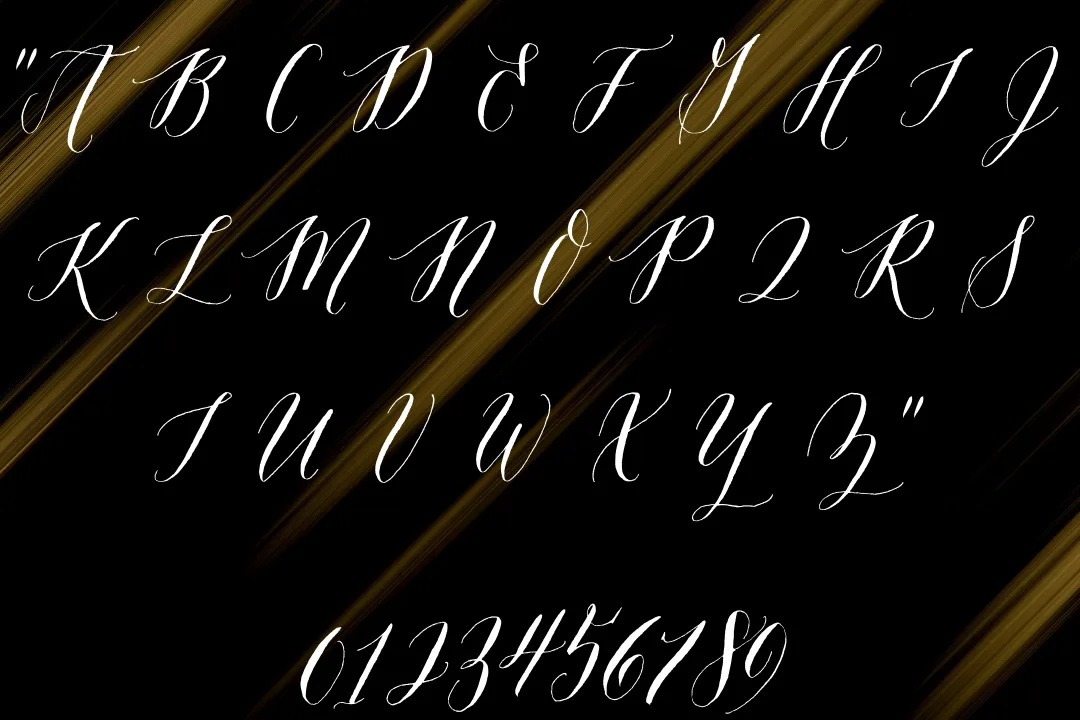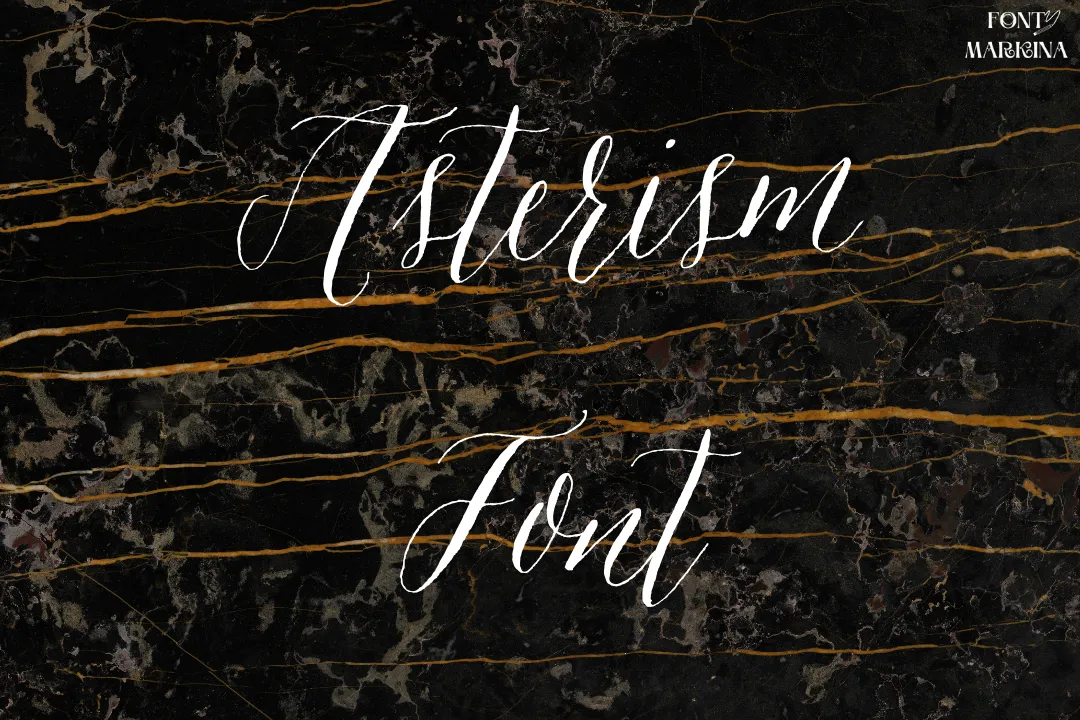
Asterism Font is a stylish calligraphy typeface with clean textures and advanced swashes. It is popular because of its support for huge languages almost nearly equal to 60. It is well-famed for its CSS programs.
Dathan Boardman and Molly Jacques Erickson are two intelligent designers who took the charge of creating this family. This awesome family was released through the Great Lakes lettering Foundry in the year 2013. Adobe and Canva, it is the best typeface.
One of the best advanced features of this family is that it has 213 unique glyphs. Also, it comes in 215 out-class characters. Some common characters are symbols, numerals, icons, and so on. An online tool known as a generator tool is provided for graphic designs.
Uses of Asterism Font
Because of its soo much-advanced properties, swashes, and clean textures this typeface is famous all over the world for use in different designs. Different companies used this family for a variety of locations such as making different clothes designs, t-shirts, hats, product designs, and so on.
By picking this font, you can give an attractive and classic look to your designs and then use this family for all projects. Frequently, this family is designed for use in the shorts header. You can also be used it for large paragraphs without any issues.
If you are an expert designer then it is very easy for you to use this family in all advanced designs and made them fascinating. The Art and Video channels can be designed by Asterism Font.
How Does Asterism Font Family Appear?
| Designer | Dathan Boardman & Molly Jacques Erickson |
| Type | Calligraphy |
Who is the creator of Asterism Font?
Dathan Boardman and Molly Jacques Erickson are both famous designers who took the charge of designing this family.
Can I use Asterism Font for my Logos?
Sur, it is best for making various types of logos. Different organizations use it for their brand logos.